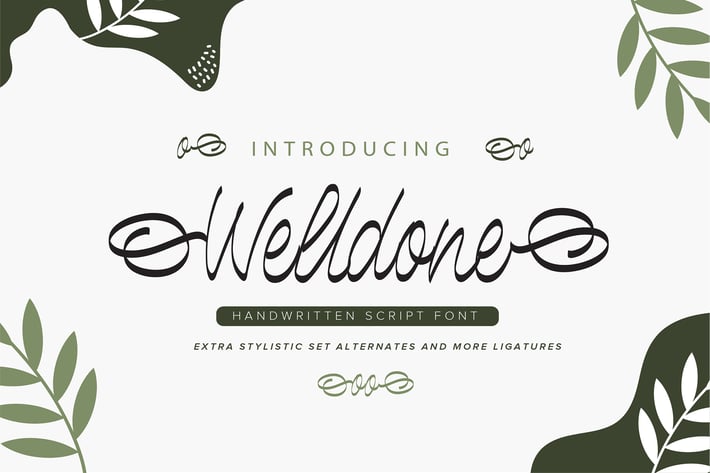
Welldone | Handwritten Script Font
Welldone | Handwritten Script Font with a calligraphy style, So beautiful on invitation like greeting cards, branding materials, business cards, quotes, posters, and more!